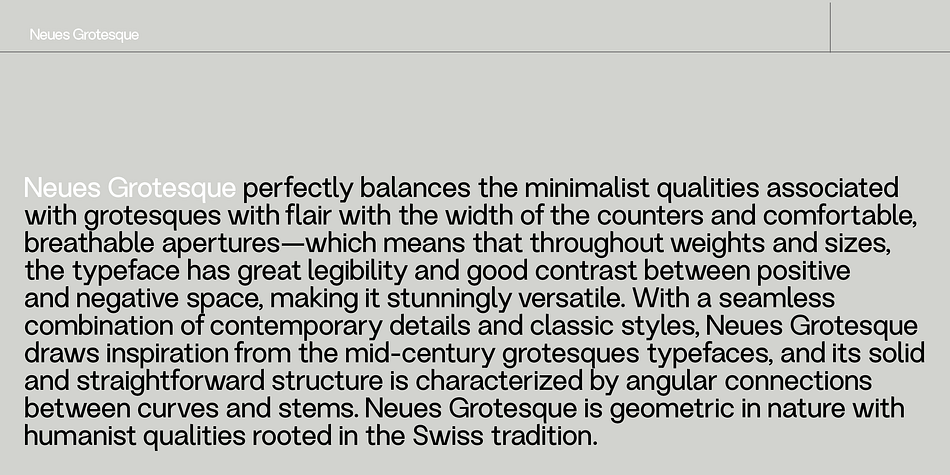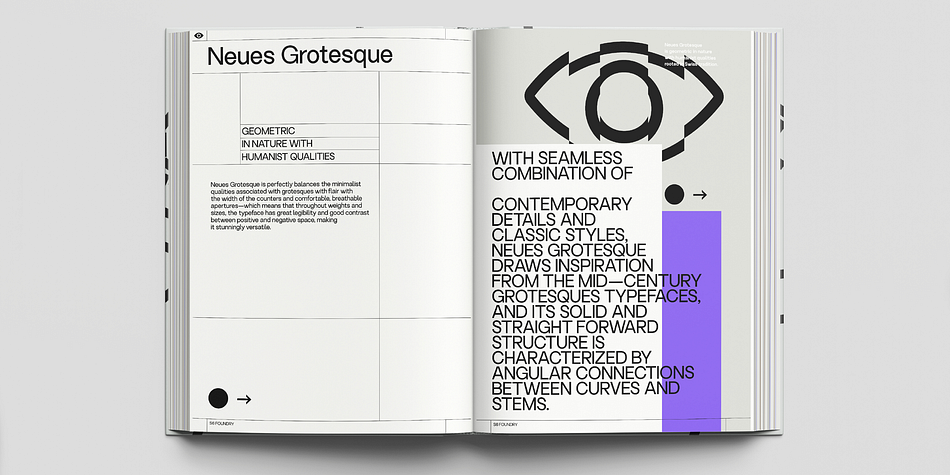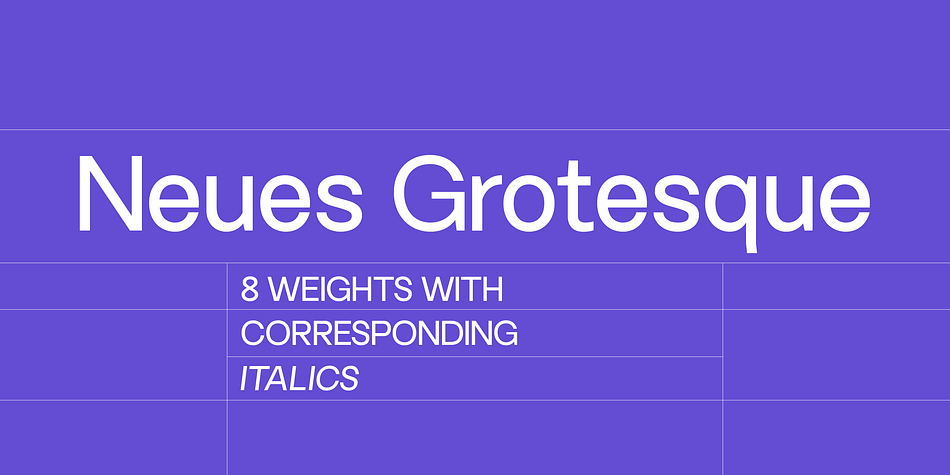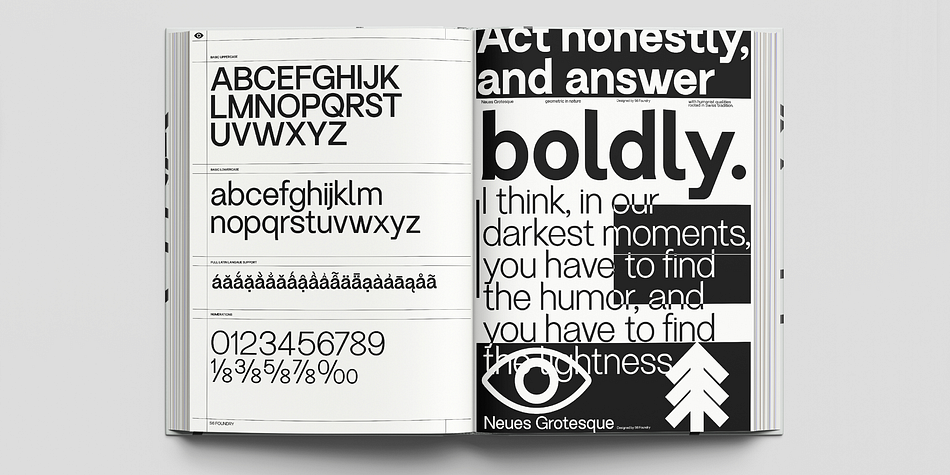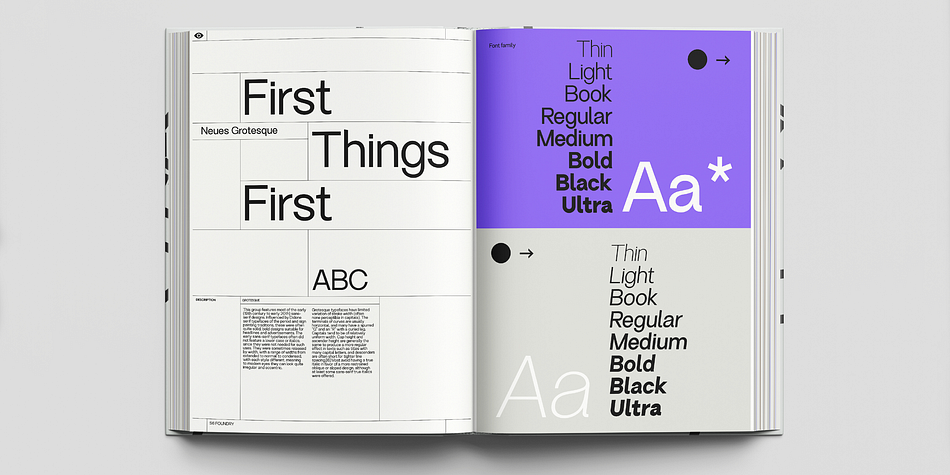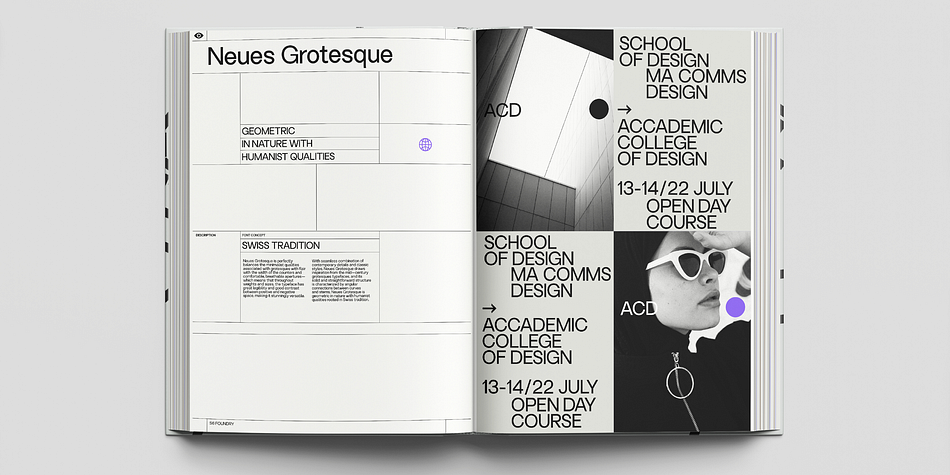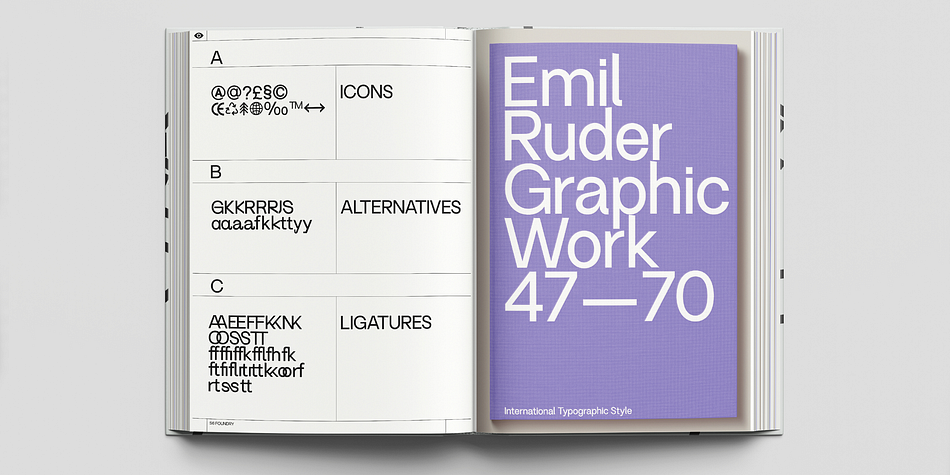
Designed by Paul Robb, Neues Grotesque is a sans serif font family. This typeface has sixteen styles and was published by S6 Foundry.
Neues Grotesque perfectly balances the minimalist qualities associated with grotesques with flair with the width of the counters and comfortable, breathable apertures—which means that throughout weights and sizes, the typeface has great legibility and good contrast between positive and negative space, making it stunningly versatile. With a seamless combination of contemporary details and classic styles, Neues Grotesque draws inspiration from the mid-century grotesques typefaces, and its solid and straightforward structure is characterized by angular connections between curves and stems. Neues Grotesque is geometric in nature with humanist qualities rooted in the Swiss tradition.